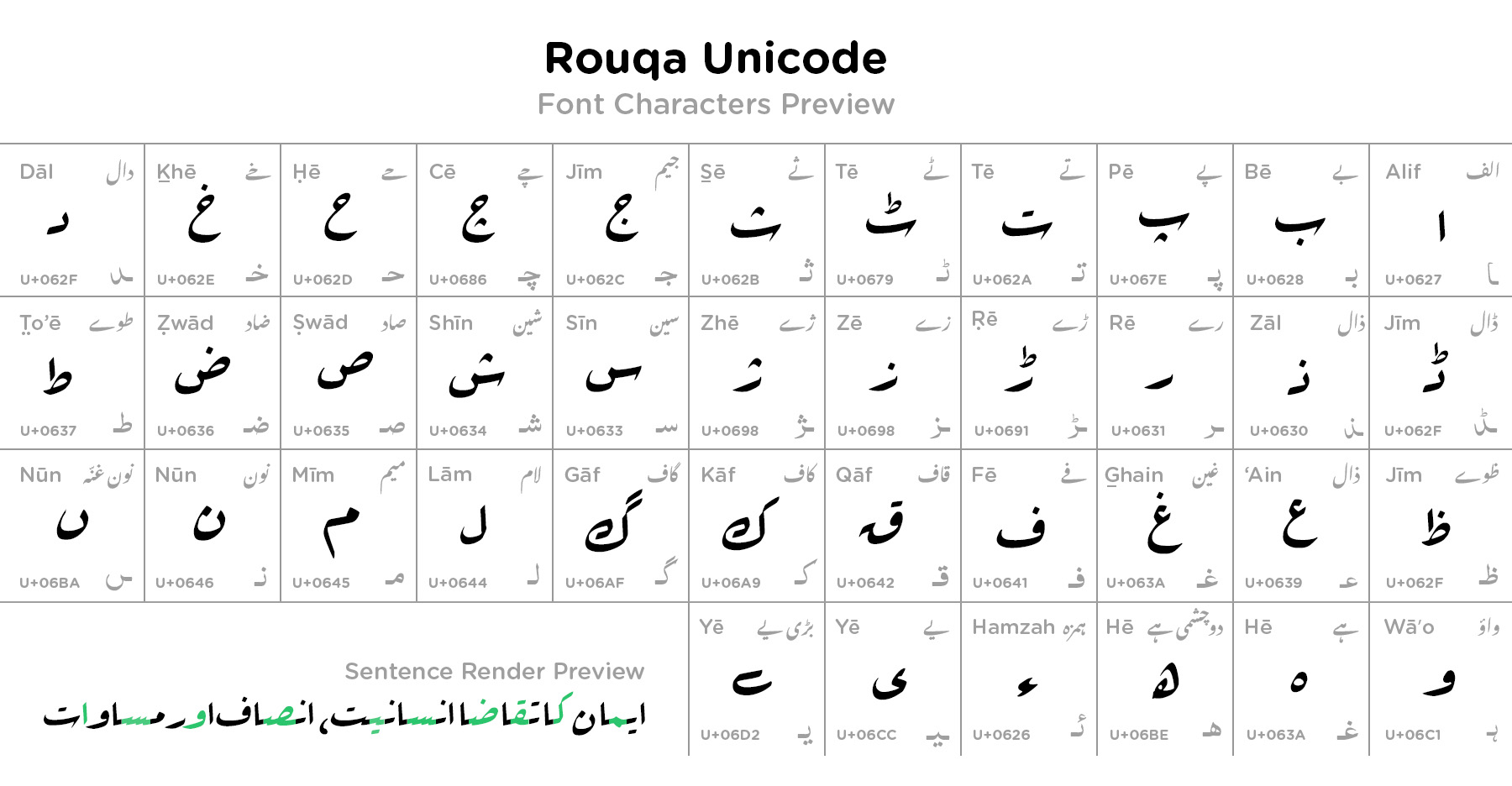
Rouqa Unicode, designed by Syed Manzar Hasan Zaidi and published by Axis Softmedia Pvt. Ltd., is a font with less angular, more curvy letterforms. Released on October 10, 2017, this font draws inspiration from the traditional Ruqaa script, evident in its flowing and relatively condensed letterforms. With 444 characters and 497 glyphs, Rouqa Unicode supports Arabic, Latin, Greek, and more to cater to many multilingual design or literary projects. Moreover, its support for various Unicode blocks offers seamless integration across various apps and tools.